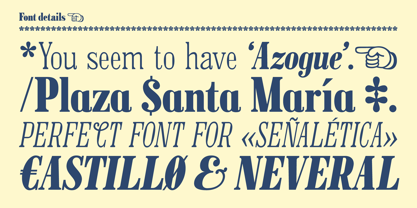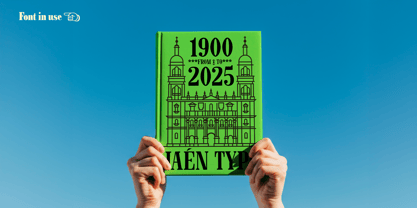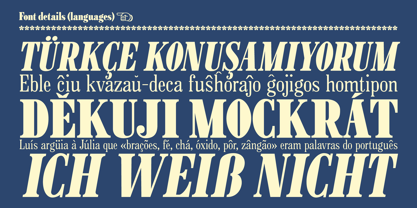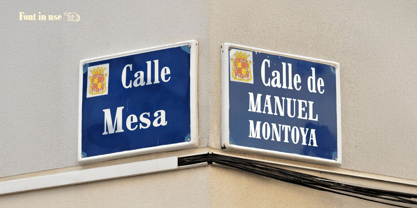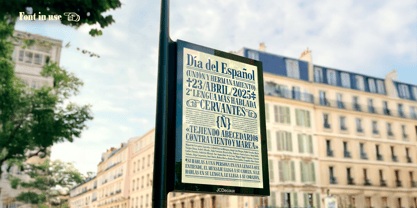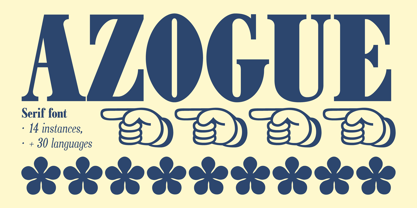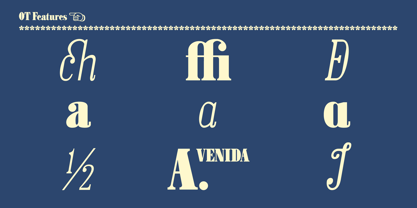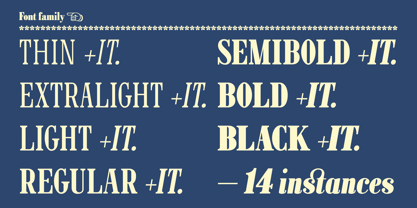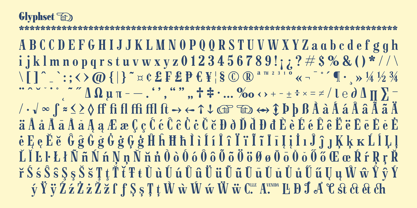
Azogue
by Nanom Designs
The Azogue Font Family was designed by Mariano Jiménez and published by Nanom Designs. Azogue contains 14 styles and family package options. More about this family
Azogue is a serif typeface that comes from the sign of a residential building in Jaén. The name is a word used mainly in Andalusia to refer to a restless person. Since the typeface is ultimately intended for use in road signage, the person seeing it would be on movement. To add a rural touch to your work, the font is a great option, such as signage for cities and towns that want to identify streets, avenues, or public spaces. Visually, its characters are elegant and serious, but they maintain a local touch from Jaén. The typeface stands out when used in large sizes, but its wide repertoire makes it adaptable. It has two axes (italic and weight) and 14 instances, and also contains hundreds of glyphs and Opentype features. It can be used in more than 30 different languages.
Designers: Mariano Jiménez
Foundry: Nanom Designs